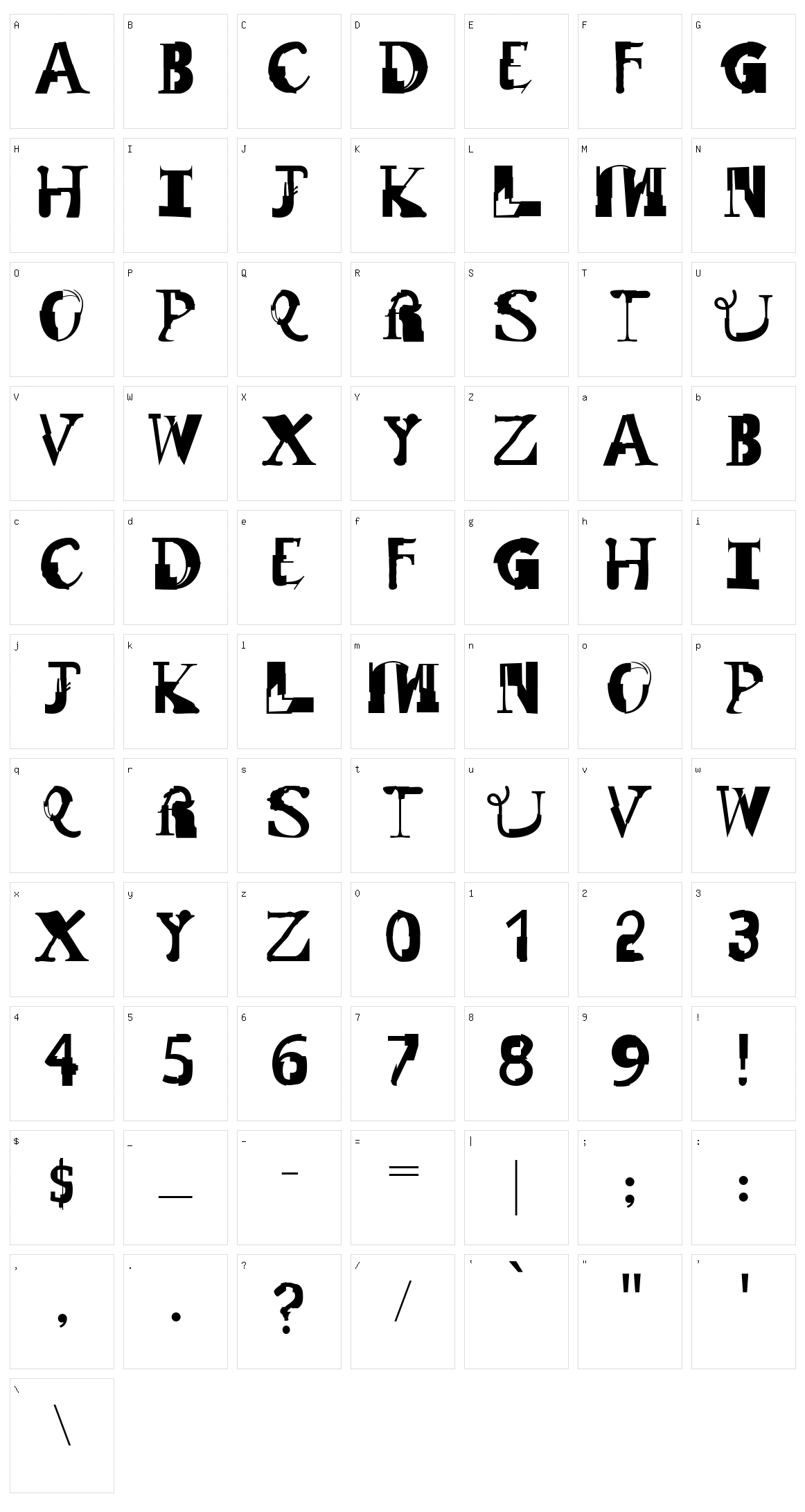
Remix Font
The Remix font is a font designed by me. It is based on random fonts. I created this font using Adobe Illustrator and Fontographer 5. Like all other JLH Fonts, this font is in the public domain and comes with the Euro sign.